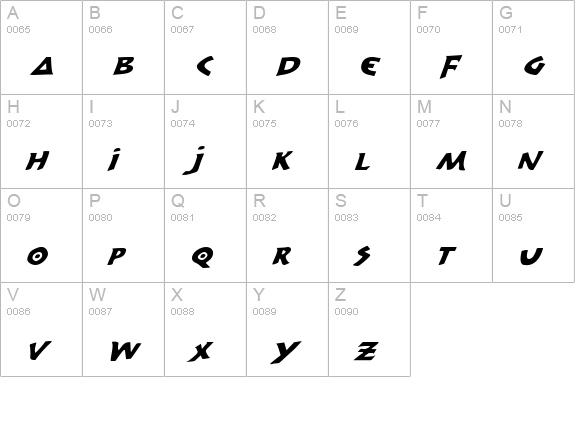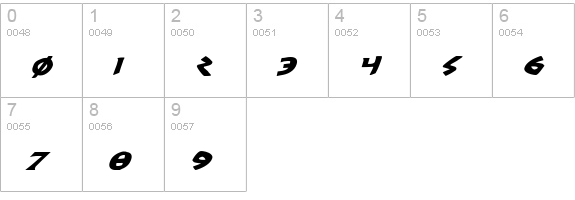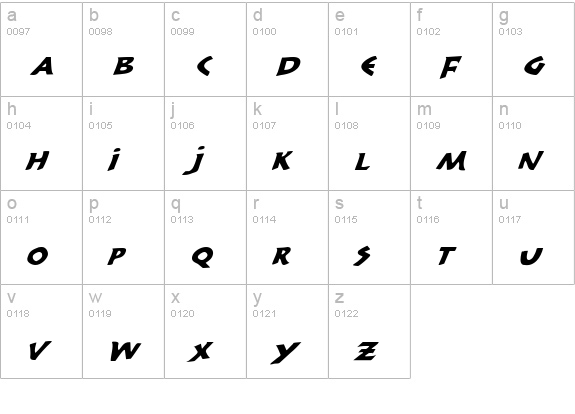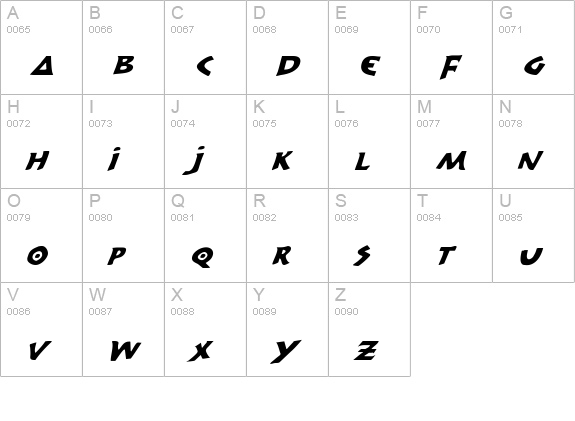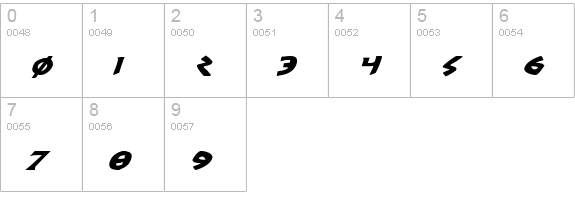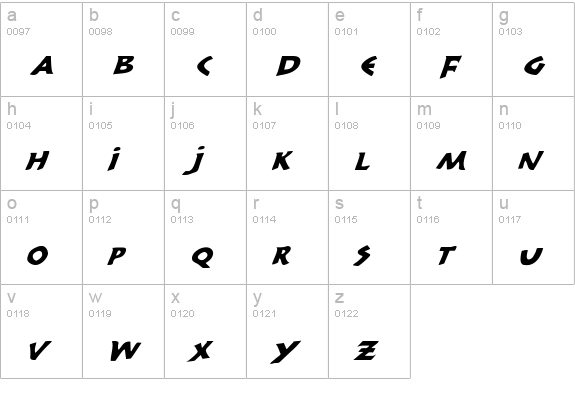
300 Trojans Expanded Italic is a distinctive, extended-width, italic variant in the 300 typeface family \xE2\x80\x94 well suited to design and typography projects.
The 300 Trojans Expanded Italic font is a sleek and stylish typeface that exudes sophistication and elegance. With its elongated letterforms and graceful curves, this font is perfect for adding a touch of class to your designs. Whether you're creating invitations, branding materials, or editorial layouts, the 300 Trojans Expanded Italic font will elevate your projects to new heights. Best of all, this exquisite font is available for free download at FontsMarket.com. Don't miss out on the opportunity to enhance your designs with the 300 Trojans Expanded Italic font without spending a dime. Download it today and unleash your creativity with this stunning typeface.